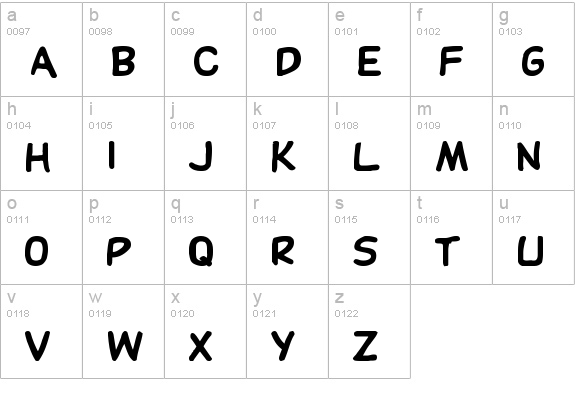
DupuyBALloon-Bo Font Details
DupuyBALloon-Bo is a charming and whimsical font that brings a playful touch to any design project. Its rounded edges and bouncy letterforms give off a fun and friendly vibe, making it perfect for invitations, greeting cards, and children's books. The unique style of DupuyBALloon-Bo is sure to stand out and grab attention. The best part is that DupuyBALloon-Bo is completely free to use! You can easily download this delightful font at FontsMarket.com and start incorporating its cheerful personality into your projects today. Whether you're looking to add a touch of whimsy or create a lighthearted atmosphere, DupuyBALloon-Bo is the perfect choice. Get creative and let your imagination soar with this fantastic font!